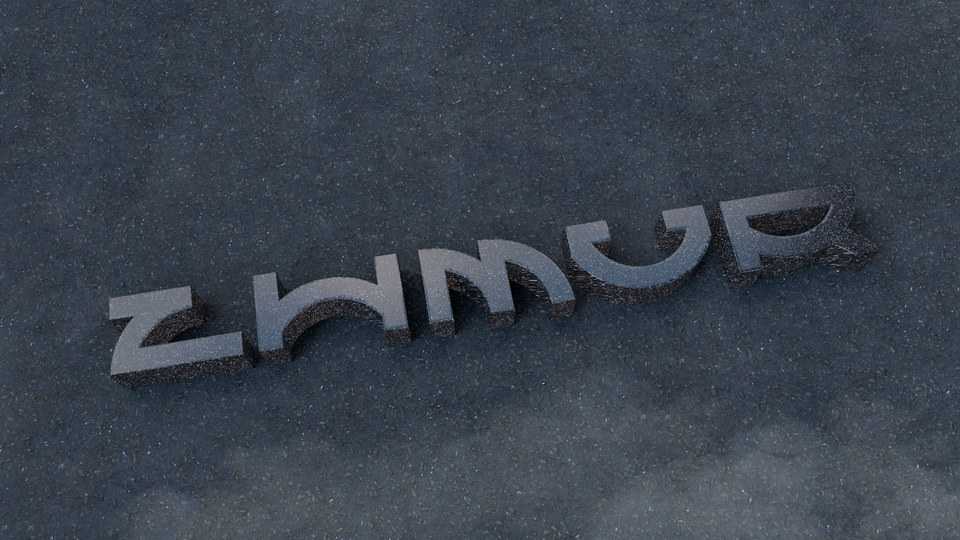
Download Zhmur font, an unusual display typeface with a futuristic appearance. With its bold personality, the font works best for posters, headlines an typographic compositions.